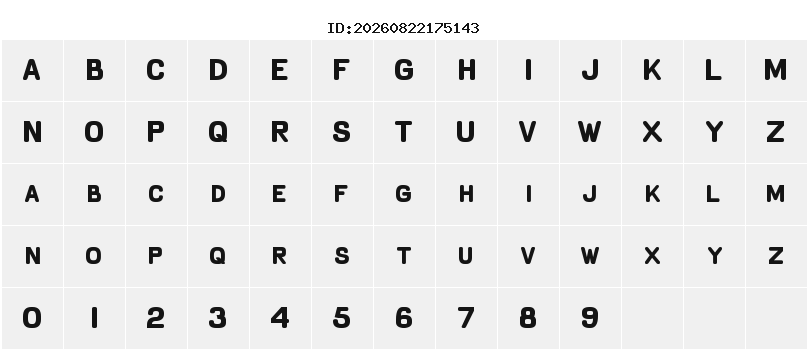
Schnaubelt Preview
• Font Name: Schnaubelt
• Full Font Name: Schnaubelt Bold
• Designer: Neale Davidson
About Schnaubelt.ttf
Schnaubelt.ttf is a modern, elegant sans-serif font designed for ultimate readability and visual harmony. Perfect for branding, headlines, web design, and print materials.